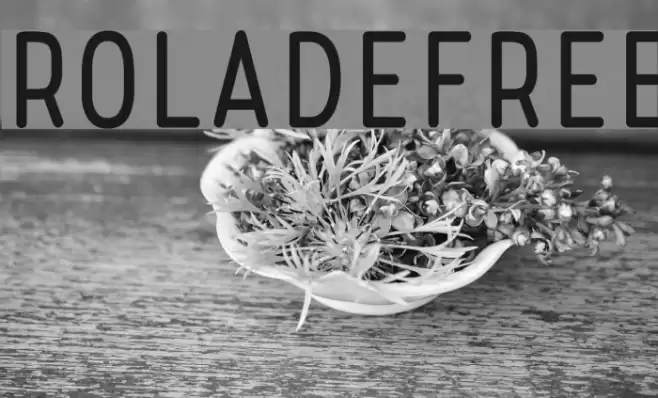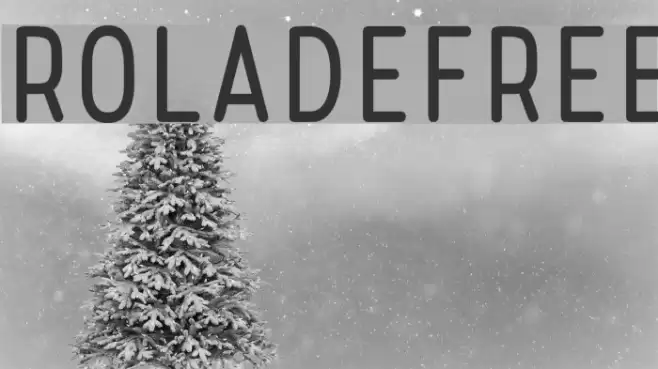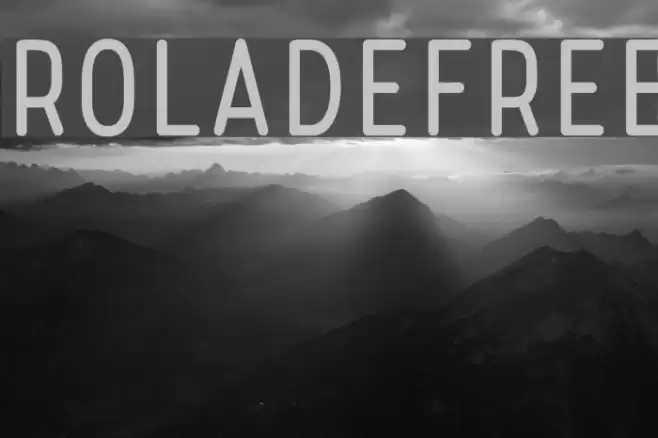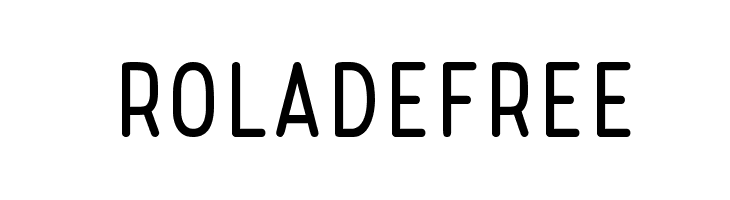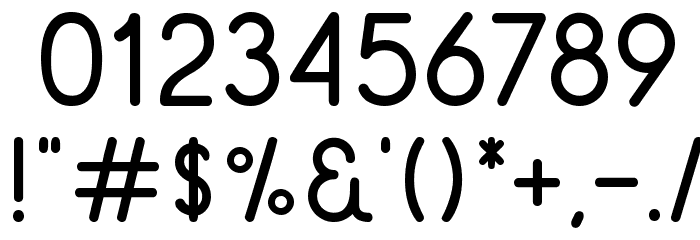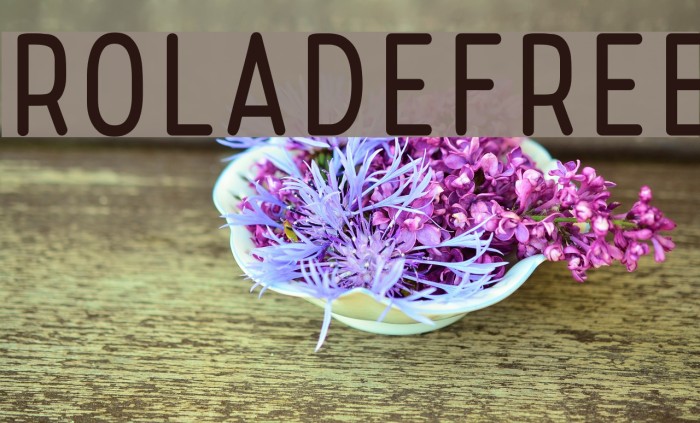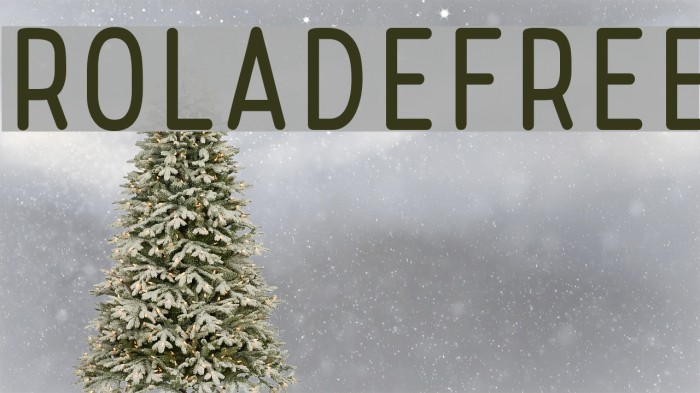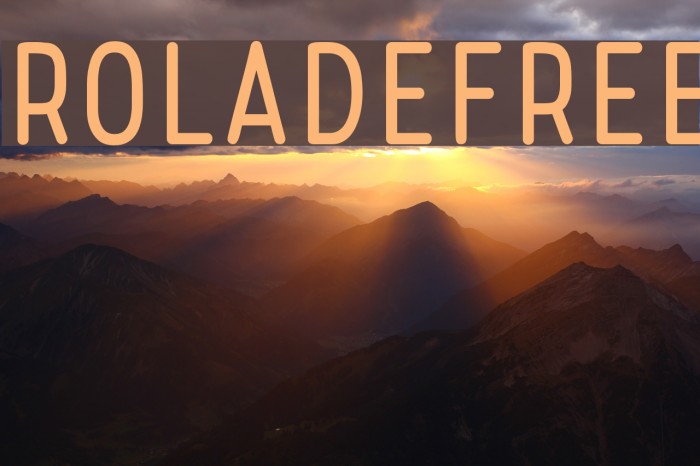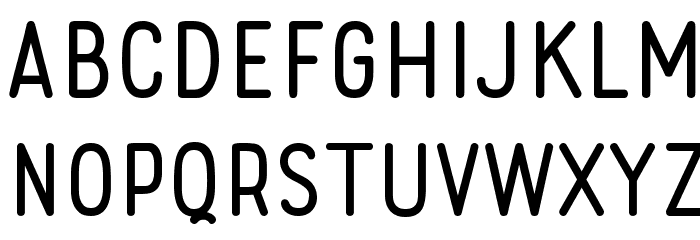
RoladeFree Font
RoladeFree Description
This font features a clean and modern sans-serif style with rounded edges, giving it a friendly and approachable appearance. The characters are evenly spaced, providing a balanced and harmonious look. The uppercase and lowercase letters maintain a consistent height, ensuring readability and clarity. The numerals are distinct and easy to differentiate, making them suitable for various applications. Special characters are well-defined, adding versatility to the font's use. Overall, this font combines simplicity with a touch of elegance, making it ideal for contemporary design projects.
A modern, rounded sans-serif font with clean lines and balanced spacing from Uncategorized fonts.
- Proposed Projects: Ideal for branding, web design, user interfaces, and print materials where a modern and approachable look is desired.